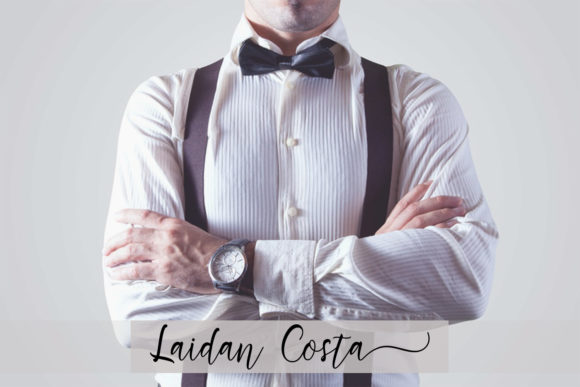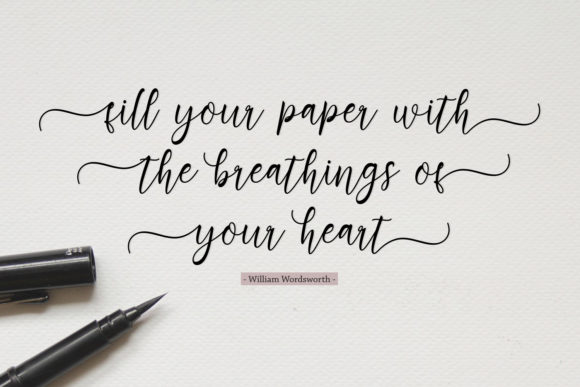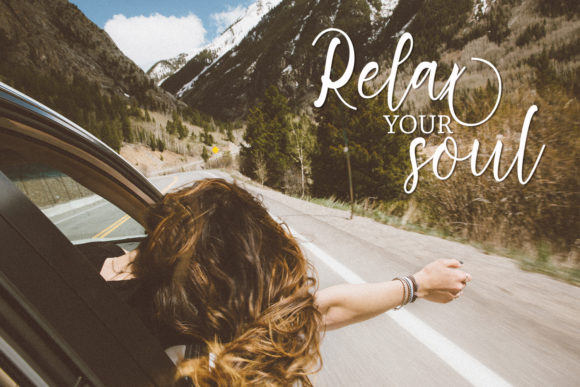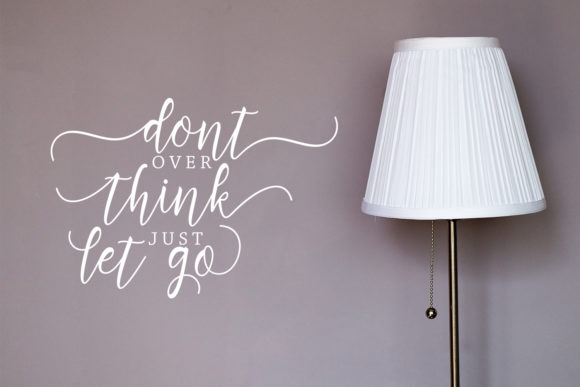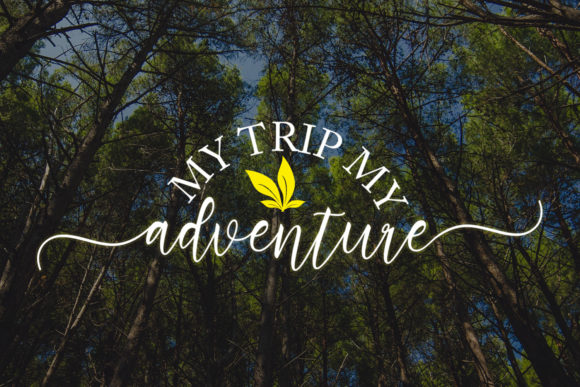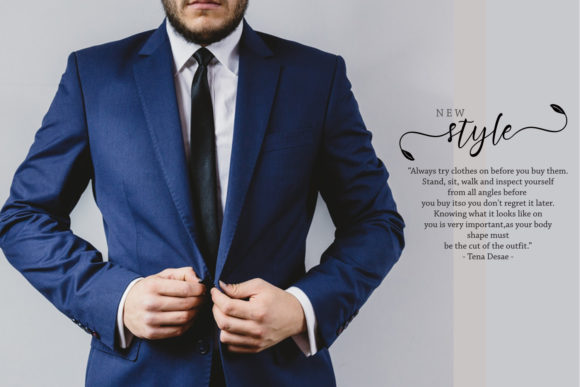
Introducing the Adiescode Script Font: Elevate Your Designs with Elegance
The Adiescode script font is a stunning handmade calligraphy script that exudes luxury and sophistication. With its elegant feel and fluid strokes, it’s the perfect addition to any design project that requires a touch of refinement. Whether you’re a designer, crafter, or DIY enthusiast, the Adiescode script font is sure to impress.
The Story Behind Adiescode
The Adiescode script font is a labor of love, carefully crafted to bring a sense of elegance and poise to your designs. Its unique, handmade quality sets it apart from other script fonts, giving it a distinctive character that’s both refined and captivating. The font’s creator aimed to evoke a sense of luxury and sophistication, making it perfect for high-end branding, packaging, and marketing materials.
Key Features of Adiescode Script Font
- Handmade calligraphy script: Each letter is carefully crafted to create a unique, organic feel that’s both elegant and sophisticated.
- Elegant feel: The Adiescode script font has a refined, luxurious quality that’s perfect for high-end designs.
- Fluid strokes: The font’s fluid strokes and connections create a sense of movement and flow, adding to its elegance and sophistication.
- Perfect for luxury designs: The Adiescode script font is ideal for designs that require a touch of luxury, such as high-end branding, packaging, and marketing materials.
Uses for Adiescode Script Font
The Adiescode script font is versatile and can be used in a variety of design projects, including:
- Branding and logos: Add a touch of luxury to your brand identity with the Adiescode script font.
- Packaging design: Elevate your packaging design with the Adiescode script font, perfect for high-end products.
- Marketing materials: Use the Adiescode script font to create sophisticated marketing materials, such as brochures, flyers, and posters.
- Wedding and event planning: Add a touch of elegance to your wedding or event planning designs with the Adiescode script font.
- Stationery and cards: Use the Adiescode script font to create beautiful stationery and cards that exude luxury and sophistication.
Tips for Using Adiescode Script Font
To get the most out of the Adiescode script font, follow these tips:
- Use it sparingly: The Adiescode script font is best used sparingly, as a headline or title font, to create a sense of luxury and sophistication.
- Pair it with a sans-serif font: Pair the Adiescode script font with a sans-serif font to create a beautiful contrast and add visual interest to your design.
- Experiment with colors: The Adiescode script font looks stunning in metallic colors, such as gold, silver, and copper, which add to its luxurious feel.
The Adiescode script font is a beautiful, handmade calligraphy script that adds a touch of luxury and sophistication to any design project. With its elegant feel, fluid strokes, and versatile uses, it’s perfect for designers, crafters, and DIY enthusiasts who want to create high-end designs. Whether you’re looking to create a luxurious brand identity, elegant packaging, or sophisticated marketing materials, the Adiescode script font is the perfect choice.